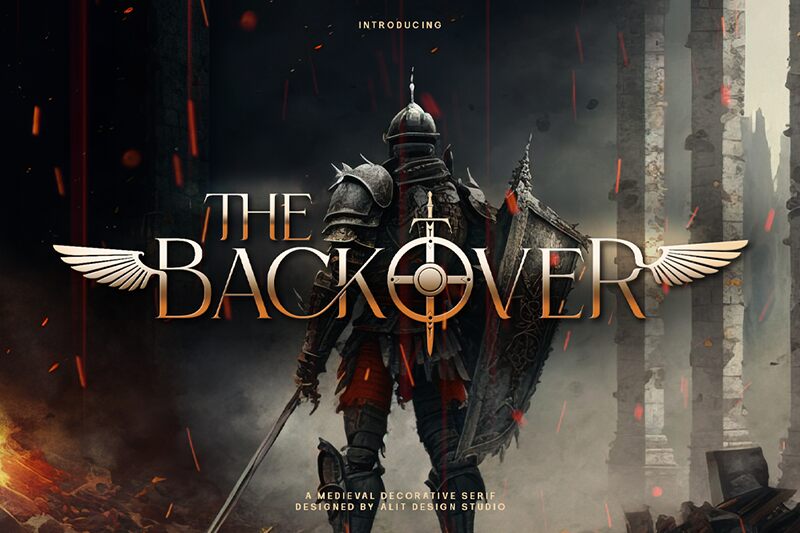
Backover Regular
Backover font is a classic serif typeface designed by Alit Design, the culmination of art and elegance. Its classic approach with refined cuts and sophisticated tone gives way to a modern look that feels timeless, especially when displayed in large sizes. With its fashionable style, this free serif font is guaranteed to make an immediate statement.
Use Backover freely for branding projects like logos and commercials, it’s great on covers (books or magazines), packaging designs (perfume bottles or milk cartons), posters, business cards, advertising material, cover letters, websites or even blogs.